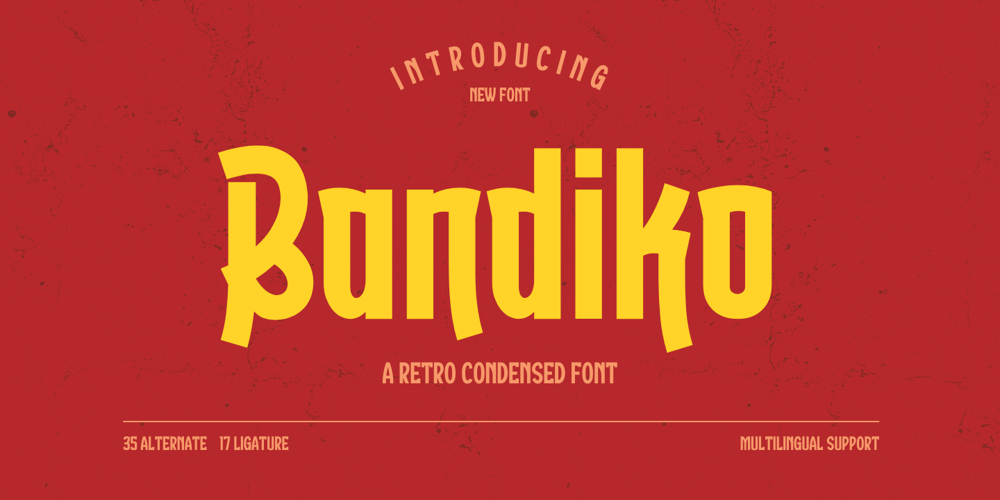
Bandiko
Bandiko Font Family was designed by Rozikan and published by Twinletter. Bandiko contains 1 styles and family package options. Introducing Bandiko, the perfect font for all your design needs! This font features a retro condensed theme with high and unique shapes, making it suitable for a wide range of design themes. The font comes with a stylistic set of alternate and unique ligatures, giving you the freedom to add a touch of personality to your designs.With Bandiko, you can create eye-catching designs that will surely stand out.Whether you’re working on a movie title, book cover, or branding project, Bandiko is the ideal font for you. So why wait? Download Bandiko now and start designing today!What’s Included :- File font- All glyphs Iso Latin 1- Alternate, Ligature- Simple installations- We highly recommend using a program that supports OpenType features and Glyphs panels like many Adobe apps and Corel Draw so that you can see and access all Glyph variations.- PUA Encoded Characters – Fully accessible without additional design software.- Fonts include Multilingual support